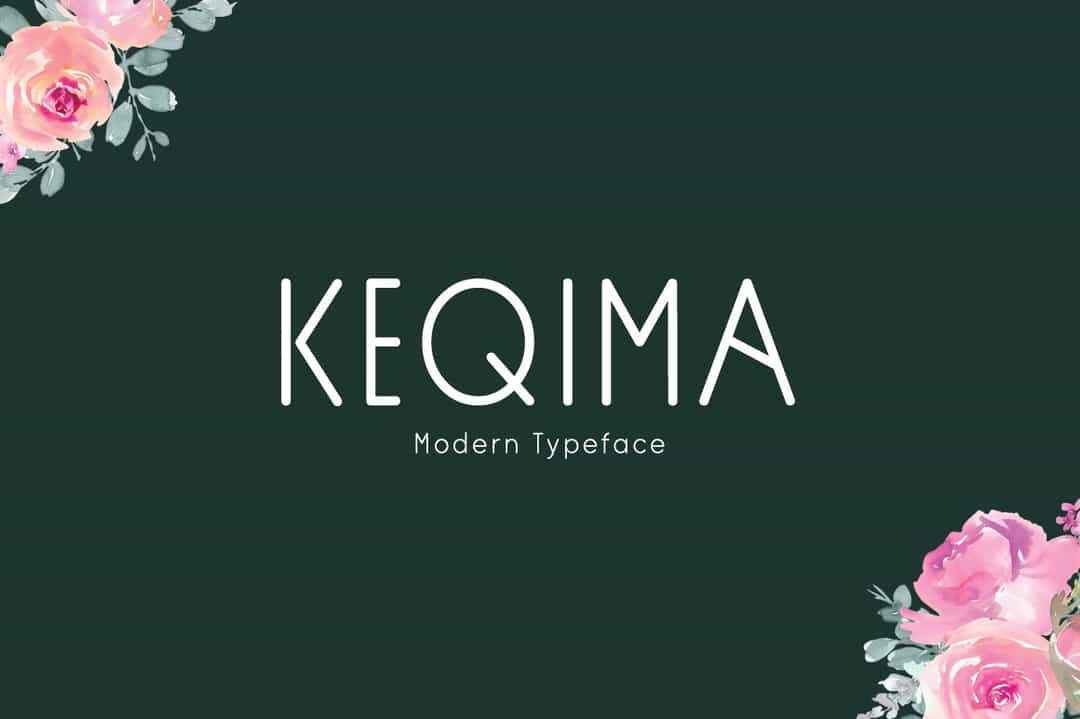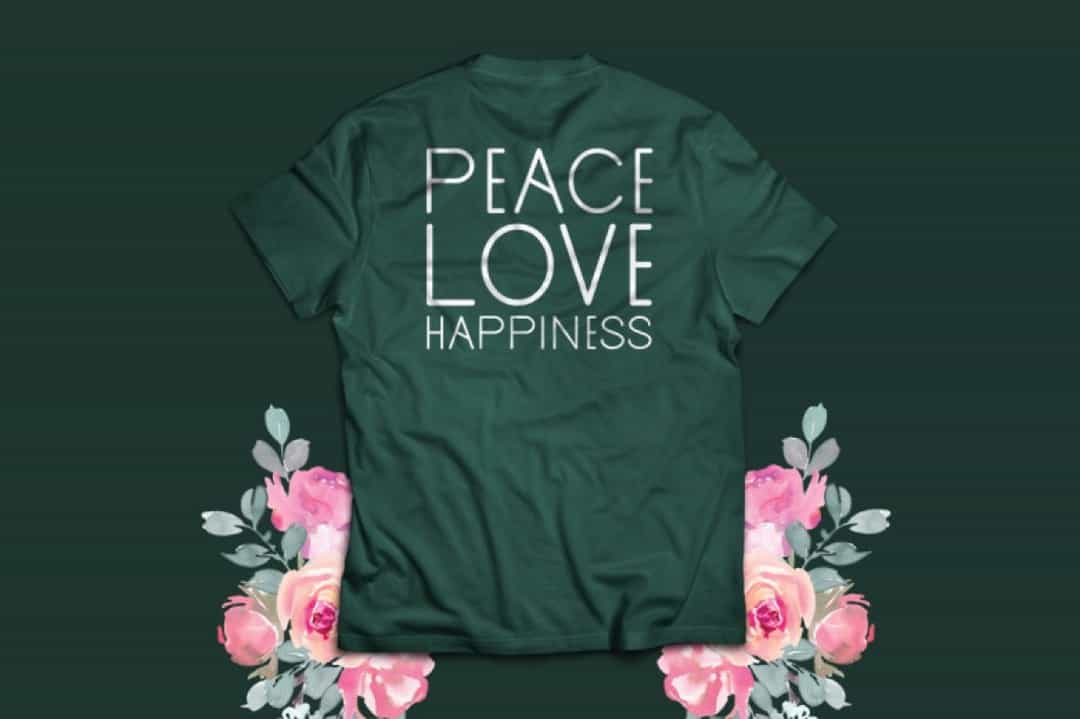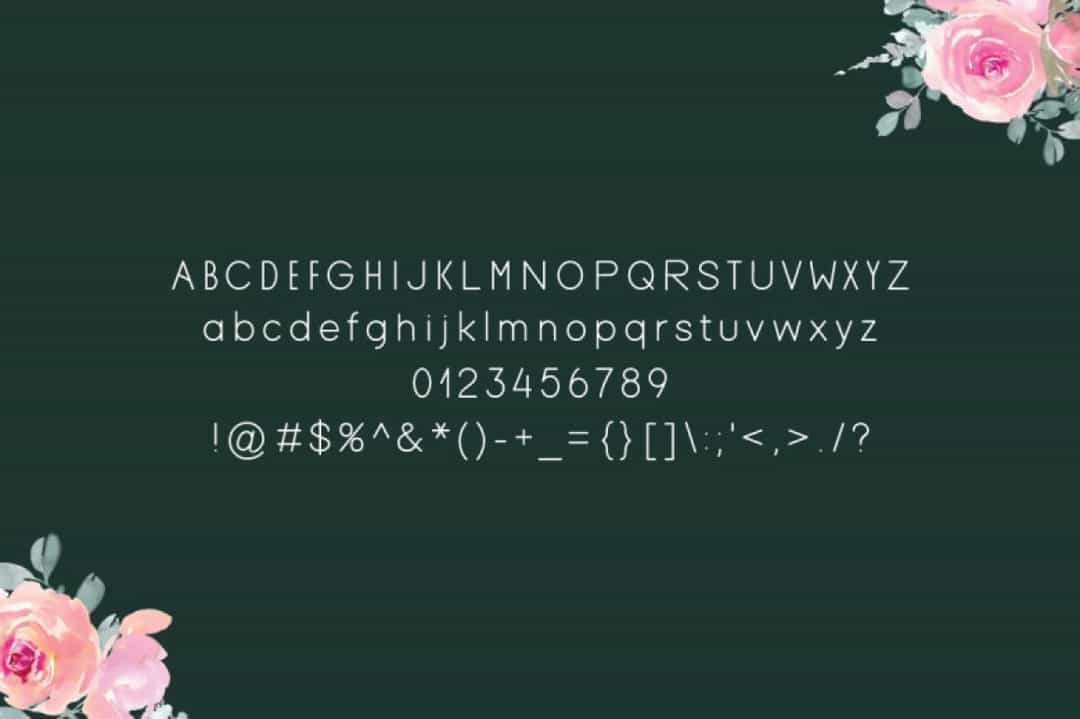
Keqima is a new and fresh futuristic condensed font that goes through a handcrafted process to make it more stylish. Designed for print and digital products, as well as web headers, posters, flyers Keqima font is one of the most suitable options that can be used to create great designs.